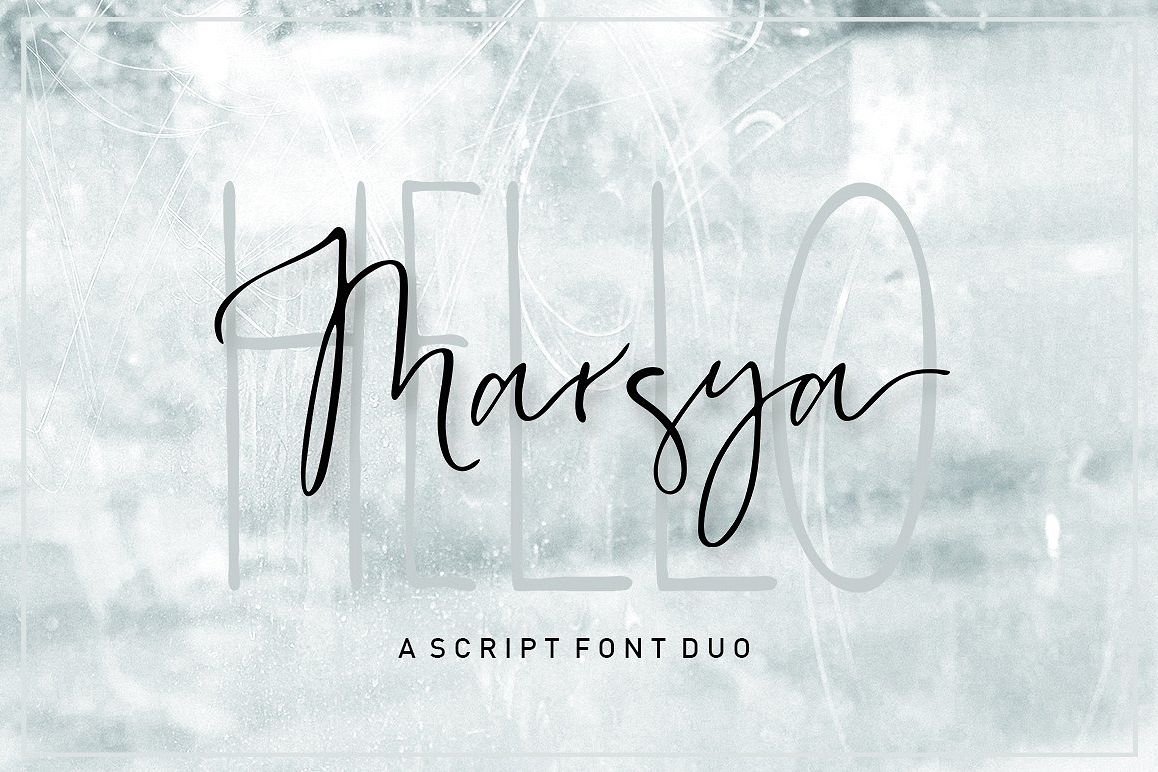
Marsya Script
Marsya Script is a brush font with a lot of alternates & ligatures., luxurious and elegant with a dancing baseline. Also available Marsya Sans to help you mix and match it to fit your creative work in harmony. casual and pretty with swashes. Can be used for many purposes. such as title, signature, logo, wedding invitations, letterhead, signage, labels, newsletters, posters, badges, etc. Marsya Script features Open type, including the initial and terminal letters, alternates, ligatures and International support for most Western languages ??included.
Marsya Script